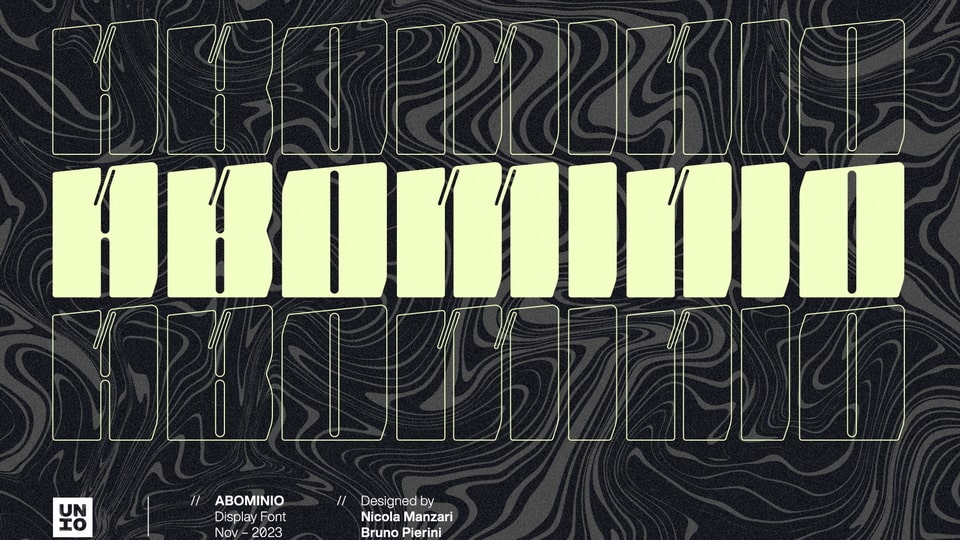
Abominio Display Font › Fontesk
Download Abominio font, a captivating display typeface featuring an innovative design of recurring chiseled forms. Abomino font aims to capture the spirit of maximalism culture, offering a valuable asset for consumer-oriented designs, allowing them to stand out in a in a sea of competitors.
Designer: Unio Creative Solutions